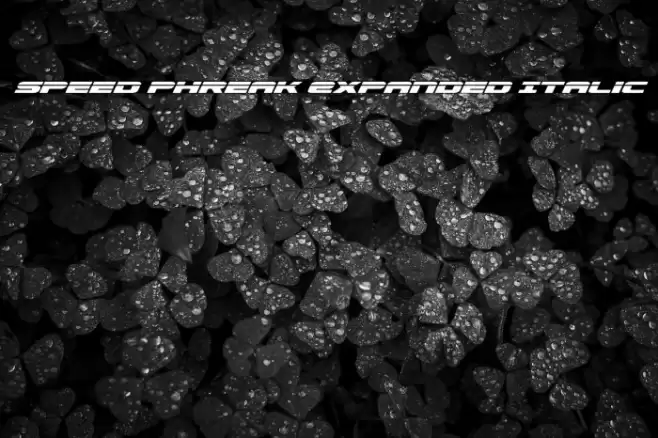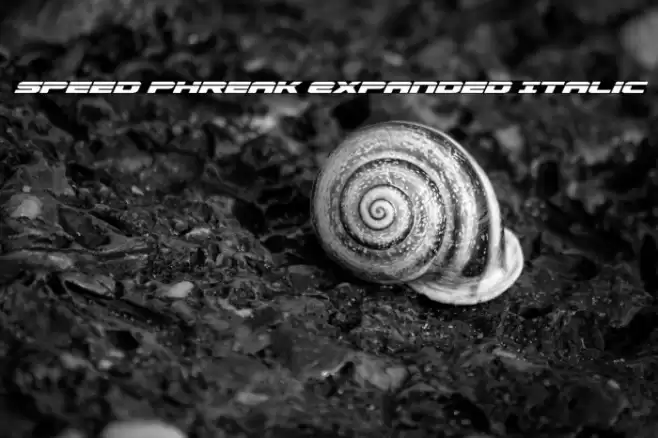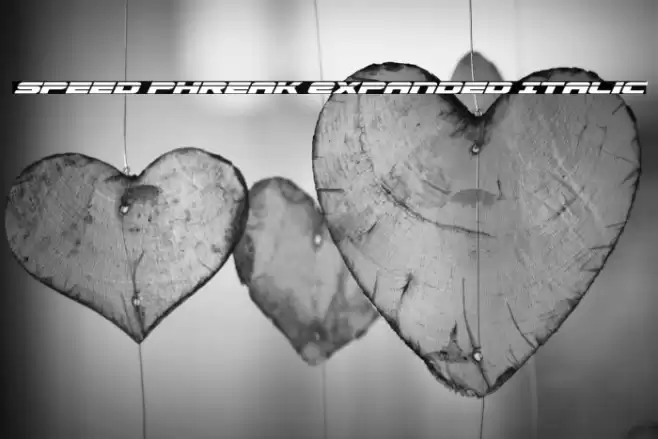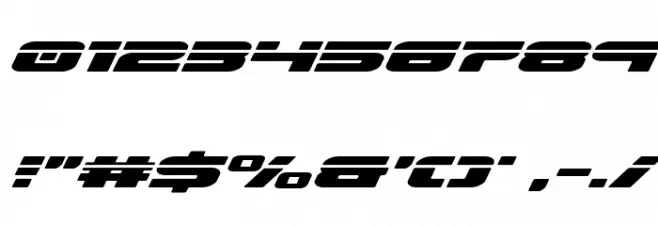
Speed Phreak Expanded Italic Font
Speed Phreak Expanded Italic Description
This font features a bold, futuristic design with an italic slant, giving it a dynamic and fast-paced appearance. The characters are expanded, providing a wide stance that enhances readability while maintaining a sleek, modern aesthetic. The strokes are consistent in weight, contributing to a uniform look across all characters. The design incorporates sharp angles and clean lines, making it ideal for projects that require a contemporary and energetic feel. The spacing between characters is tight, which adds to the compact and cohesive look of the text. This font is particularly suited for use in technology, automotive, or sports-related projects where a sense of speed and innovation is desired.
A bold, expanded, and italic font with a futuristic and dynamic style from Uncategorized fonts.
- Proposed Projects: Ideal for technology branding, sports team logos, automotive advertisements, and futuristic-themed designs.
- Width: Expanded
- Character Spacing: Tight
- Use Case: Logos, Headlines